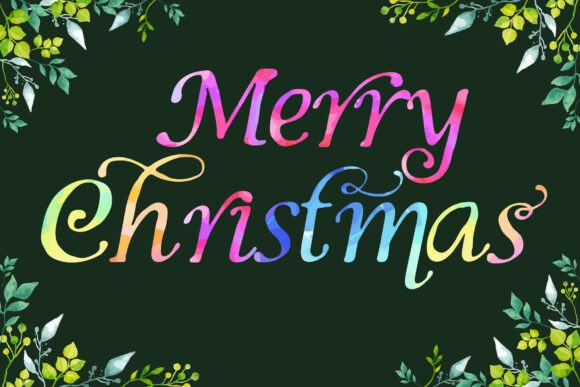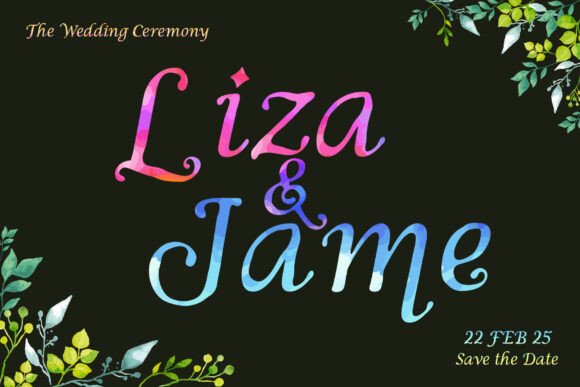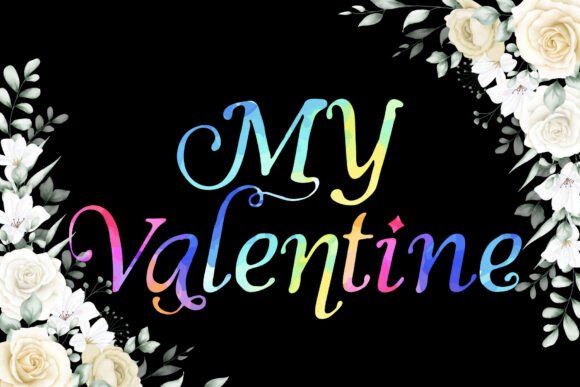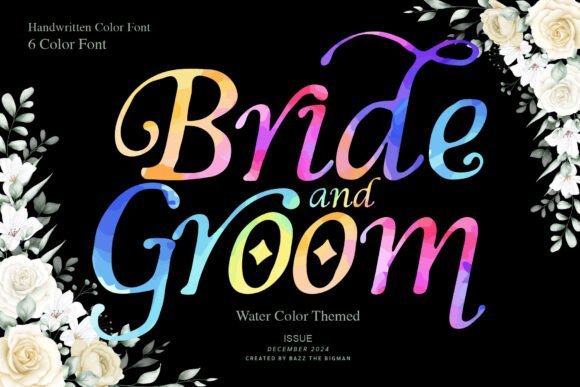
Introduction to Bride and Groom Font
Experience the magnificence of Bride and Groom, a color font that embodies style and captivating elegance.
Imbued with a watercolor theme, this font radiates an artistic sophistication that brightens up any project Whether for a Christmas celebration, a dreamy wedding card, or heartwarming Valentine message, this font accentuates the joy of every occasion.
Key Features of Bride and Groom Font
Why Choose Bride and Groom Font?
Bride and Groom Font offers exceptional quality and versatility, making it a valuable addition to your design toolkit. Whether you’re creating for personal projects or commercial use, Bride and Groom Font delivers professional results.